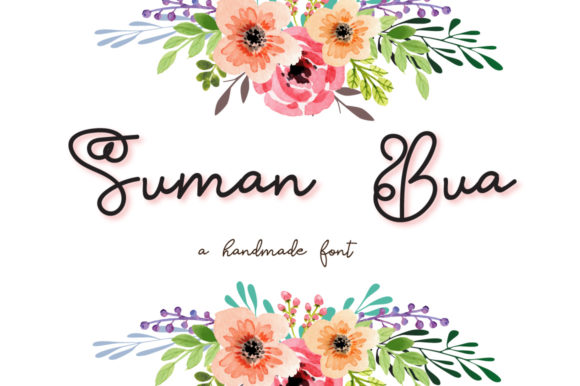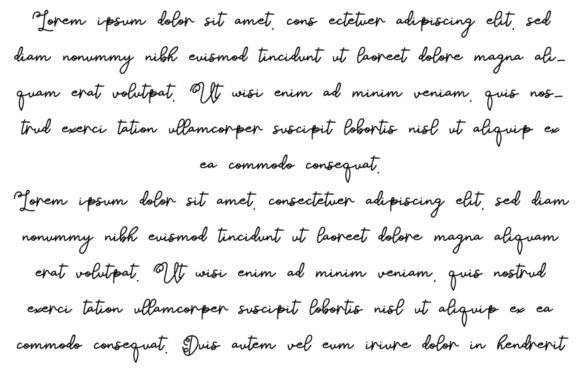
HomeScript FontsSuman Bua Font Script Fonts Suman Bua Font FacebookXPinterestWhatsApp Suman Bua Font Poster 2 About Suman Bua Font Suman Bua is a fun and playful script with some bold swashes. Get inspired by its authentic charm! DOWNLOAD ON CREATIVE FABRICAThis font is sold and delivered by Creative Fabrica. Font Canyon may earn a commission if you buy through this link. People also explored Feharitas Font Hastafloris Script Font Nirmala Font Chocolate Story Font Aftika Font Citisound Font Hello Mangolin Update Font Sunday Grinch Font Arabella Font 284 0 TagsSuman Bua Font Previous articleStark Niche FontNext articleHare Fly Font LEAVE A REPLY Cancel reply Comment: Please enter your comment! Name:* Please enter your name here Email:* You have entered an incorrect email address! Please enter your email address here Website: Save my name, email, and website in this browser for the next time I comment. Personal Use Free Token No 721 Personal Use Free Read more about this font Doriath Personal Use Free Read more about this font Maharany Personal Use Free Read more about this font Bettari Personal Use Free Read more about this font BLOG Free Fonts Risk: Why Free Fonts Can Be Dangerous for Designers Free Fonts Risk: Why Free Fonts Can Be Dangerous for Designers Using free fonts is a common practice in web and graphic design. However, the... Elegant Wedding Invitation Fonts – Handwritten & Script Fonts How to Install and Use Fonts on Windows, macOS, and Web Projects Best Fonts for YouTube Videos: Make Your Thumbnails Stand Out